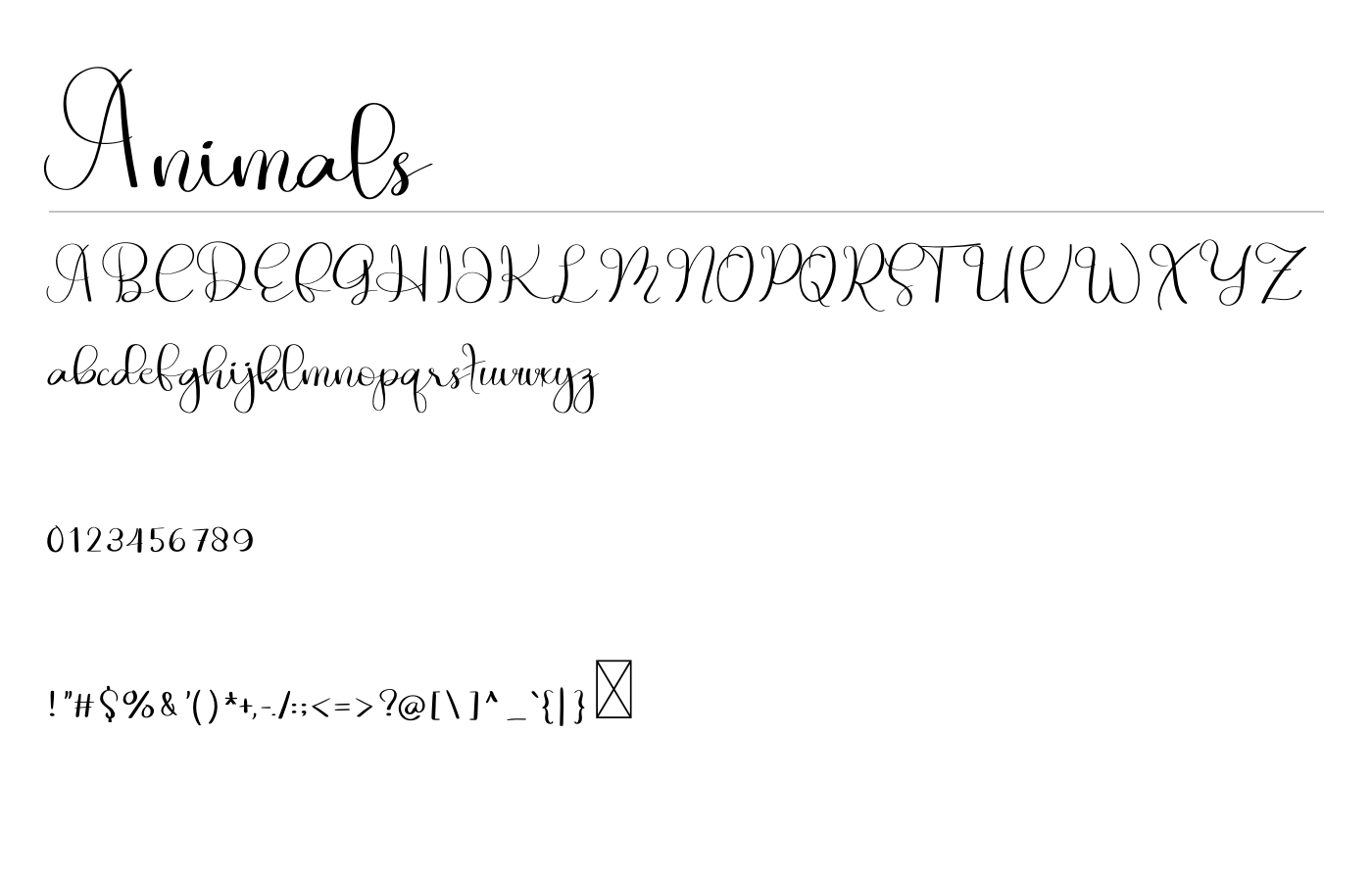
Animals Font is a delicate and elegant script typeface with fine, flowing strokes that convey a graceful and sophisticated feel. Its light weight and high contrast between thick and thin lines make it perfect for decorative uses such as invitations, branding, or logos where a touch of refinement and charm is desired. This font works best in large sizes to showcase its intricate letterforms and artistic flair.
Animals Font
About Animals Font